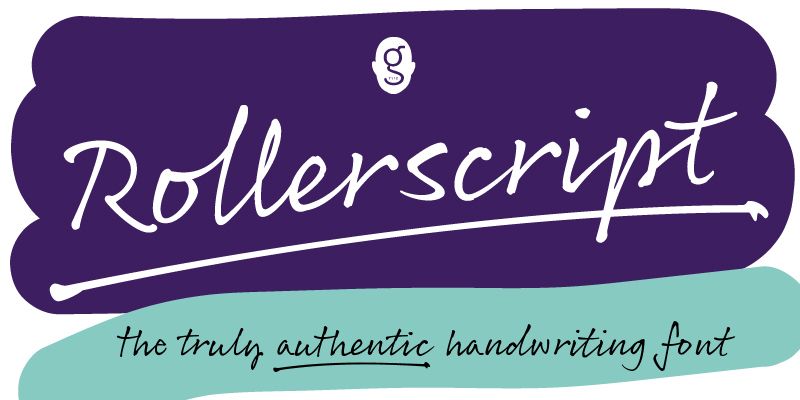
Rollerscript specimen
Rollerscript
Rollerscript excels when you need to add a human touch to your message, design or brand identity. A casual, informal handwriting font created with a roller pen it is legible, authentic, versatile and fun.